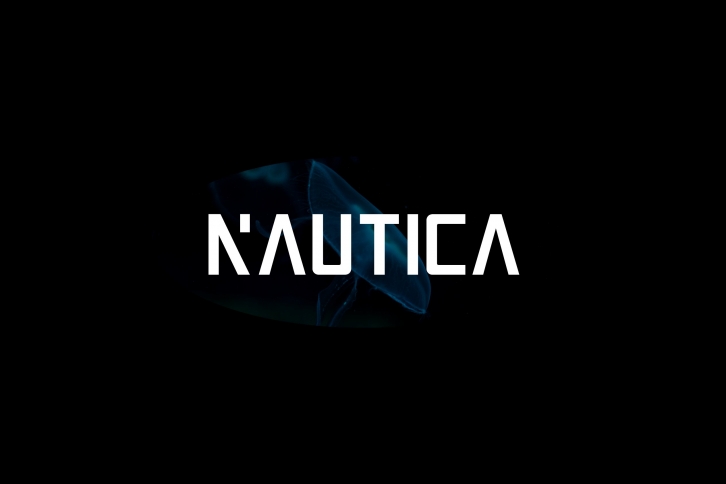
Nautica is a clean, bold and modern font inspired by the depth of the ocean world. This typeface is perfect for futuristic, scifi and even street wear design, it is versatile and an attention grabber. Use Nautica for display, logo, headline, poster, tee-shirt and many more.
Note Please keep in mind that this is a display font. It is intended to be used as a headings, title, branding, logo and wordmark rather than body text.